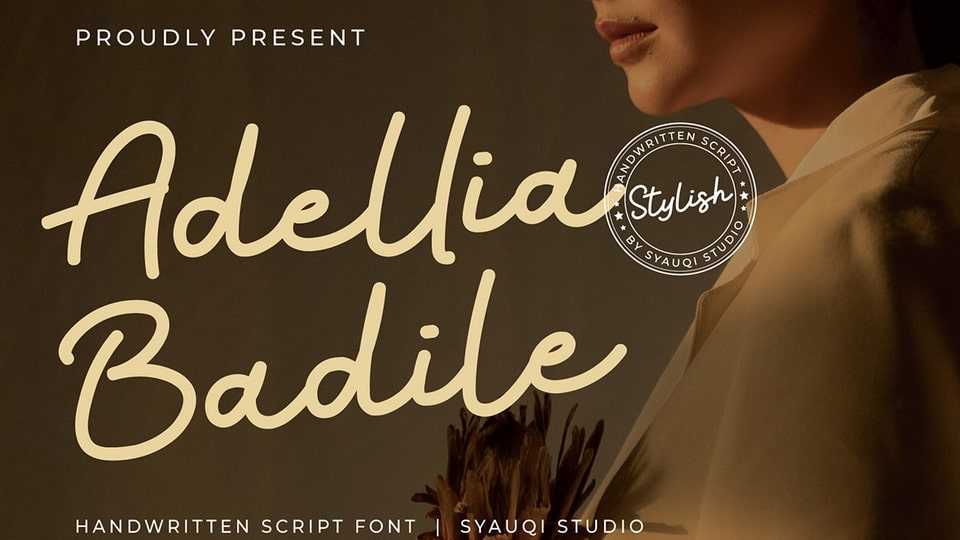
Download Adellia Badile font, a beautifully crafted handwritten script typeface designed to bring elegance and sophistication to your creative projects.
Designer: Syauqi Studio